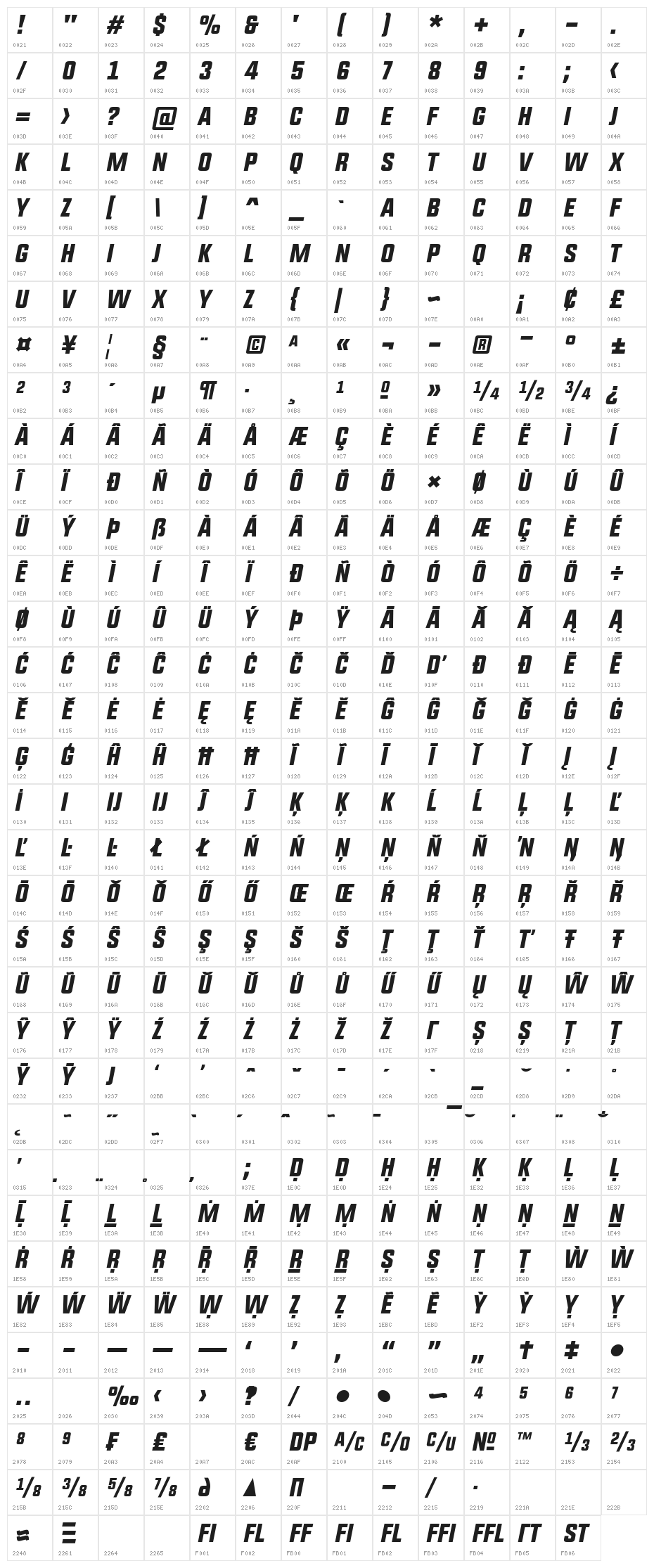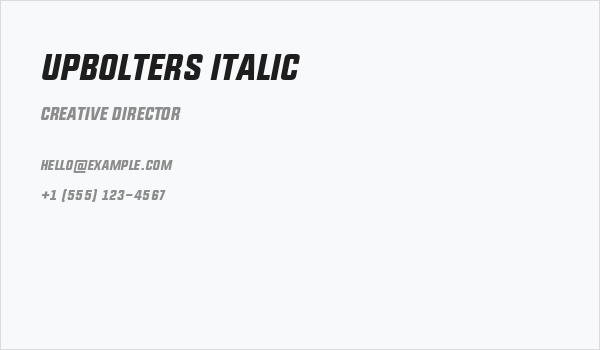
UPBOLTERS Italic Font
UPBOLTERS Italic Description
This font features a bold, italicized style with a strong and dynamic presence. The characters are slightly slanted, giving a sense of motion and energy. The strokes are thick and consistent, providing a robust and impactful appearance. The uppercase and lowercase letters maintain a uniform width, contributing to a cohesive look. The numbers and special characters are designed to match the boldness and slant of the letters, ensuring a harmonious overall design. This font is ideal for making a statement and drawing attention.
| Proposed Projects | Ideal for sports branding, dynamic posters, attention-grabbing headlines, and modern logo designs. |